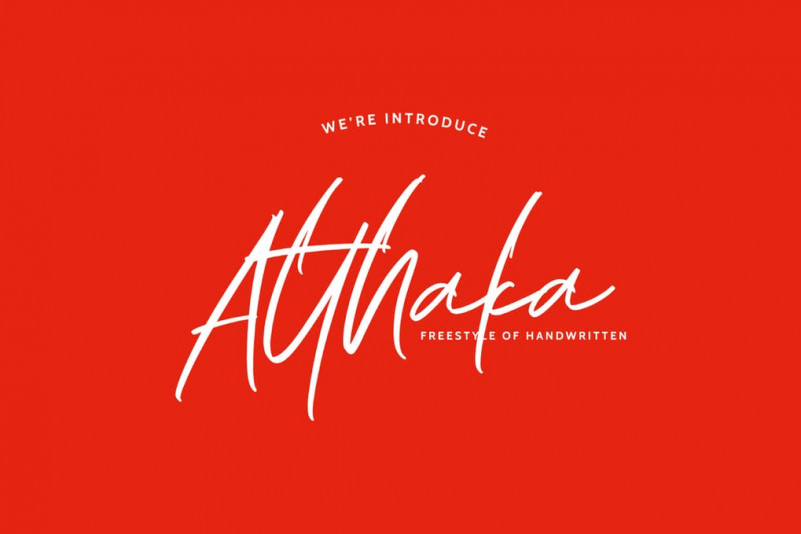
Atthaka Font
Meet the new font!!!
Atthaka based on freestyle handwritten. Suitable for your any design, such as t-shirt, invitation, logotype and more.
Atthaka have some ligatures, check that’s feature and booom, you can play with the features.